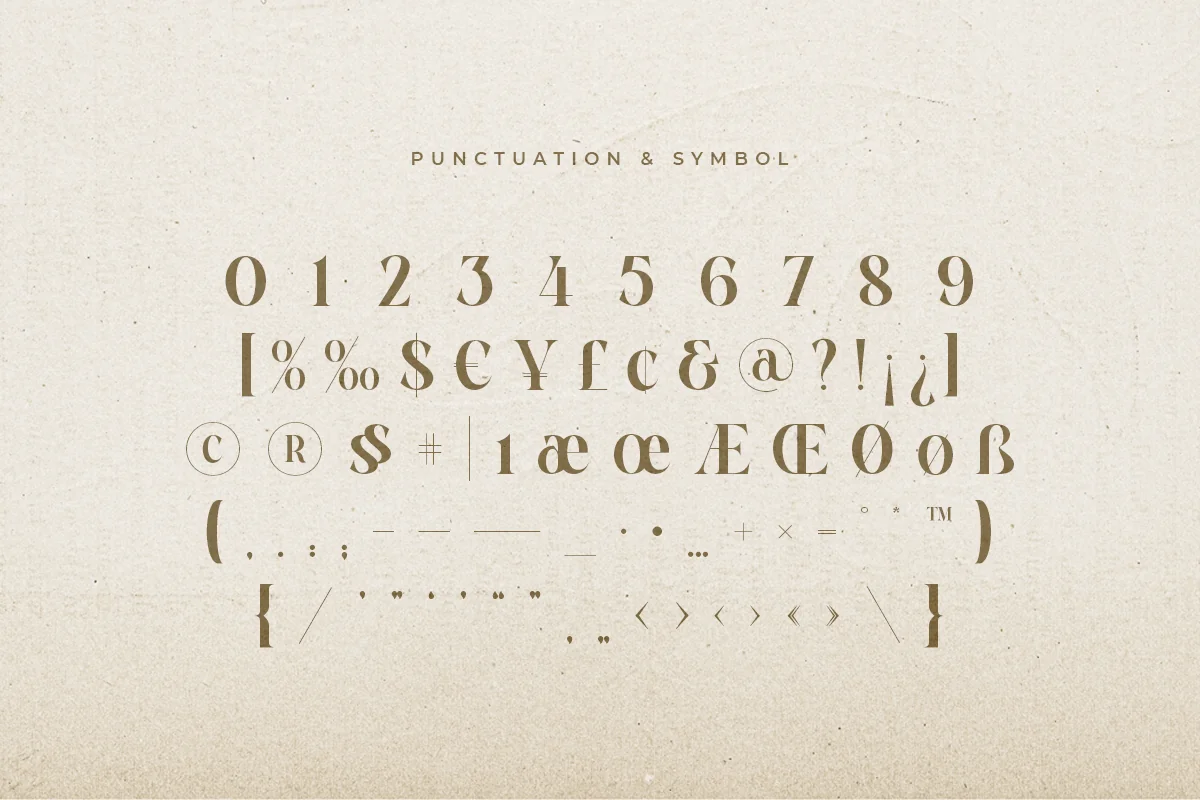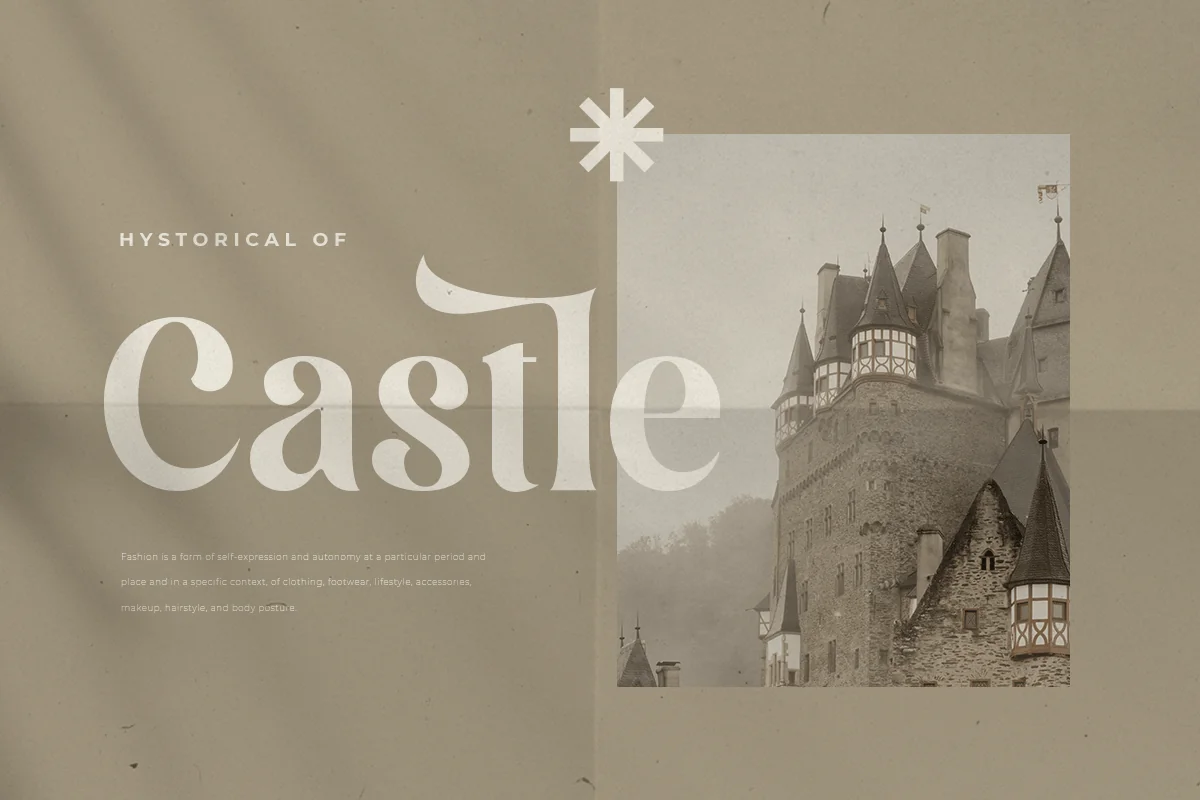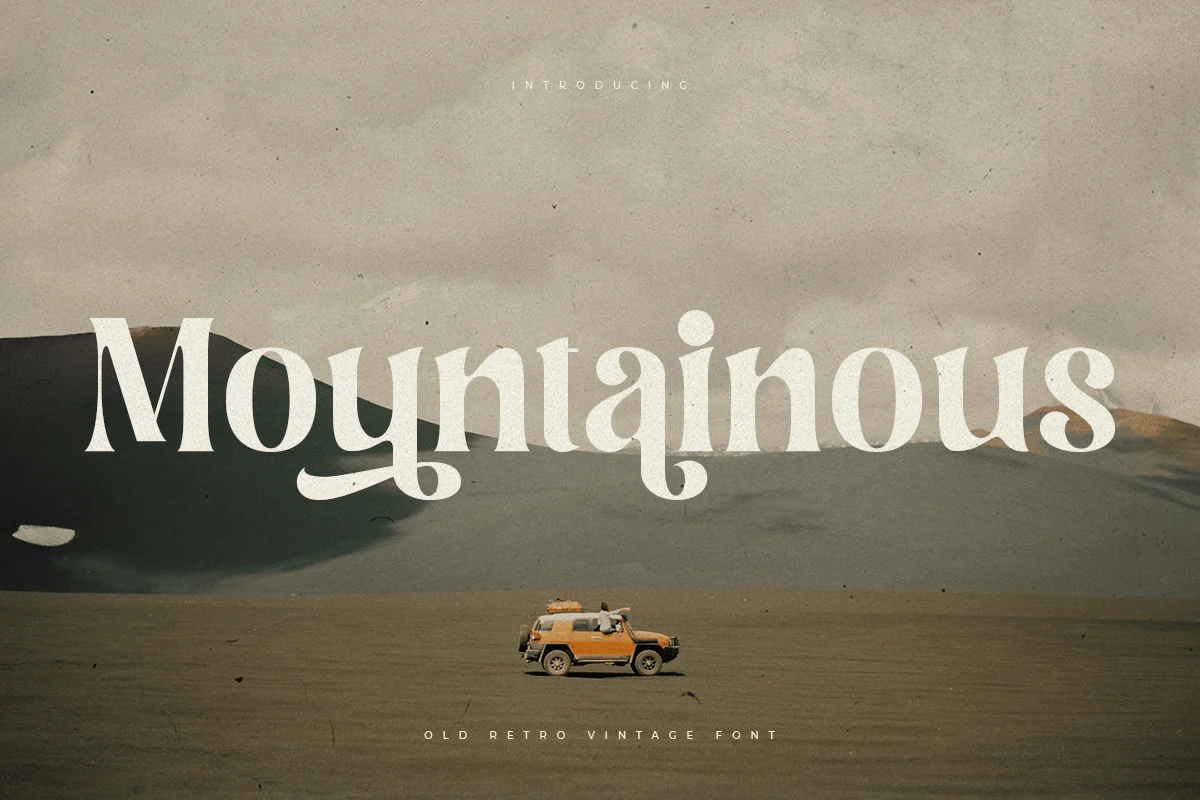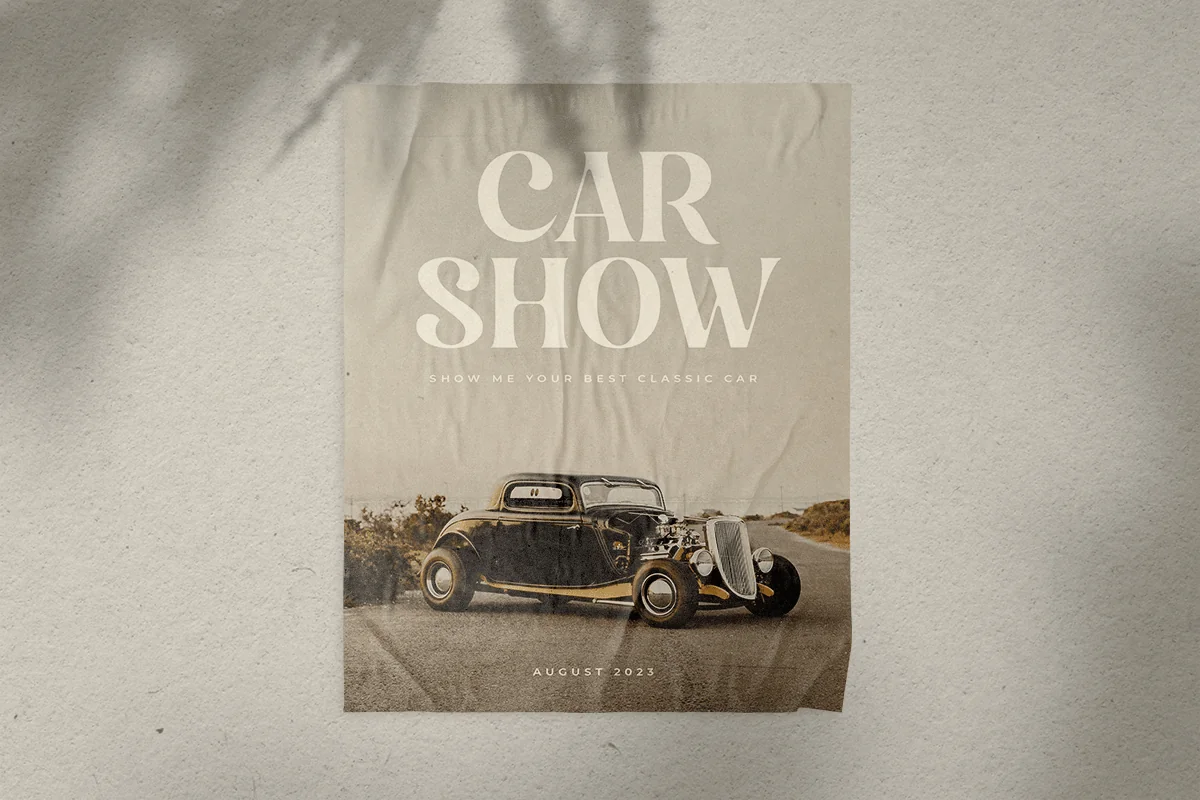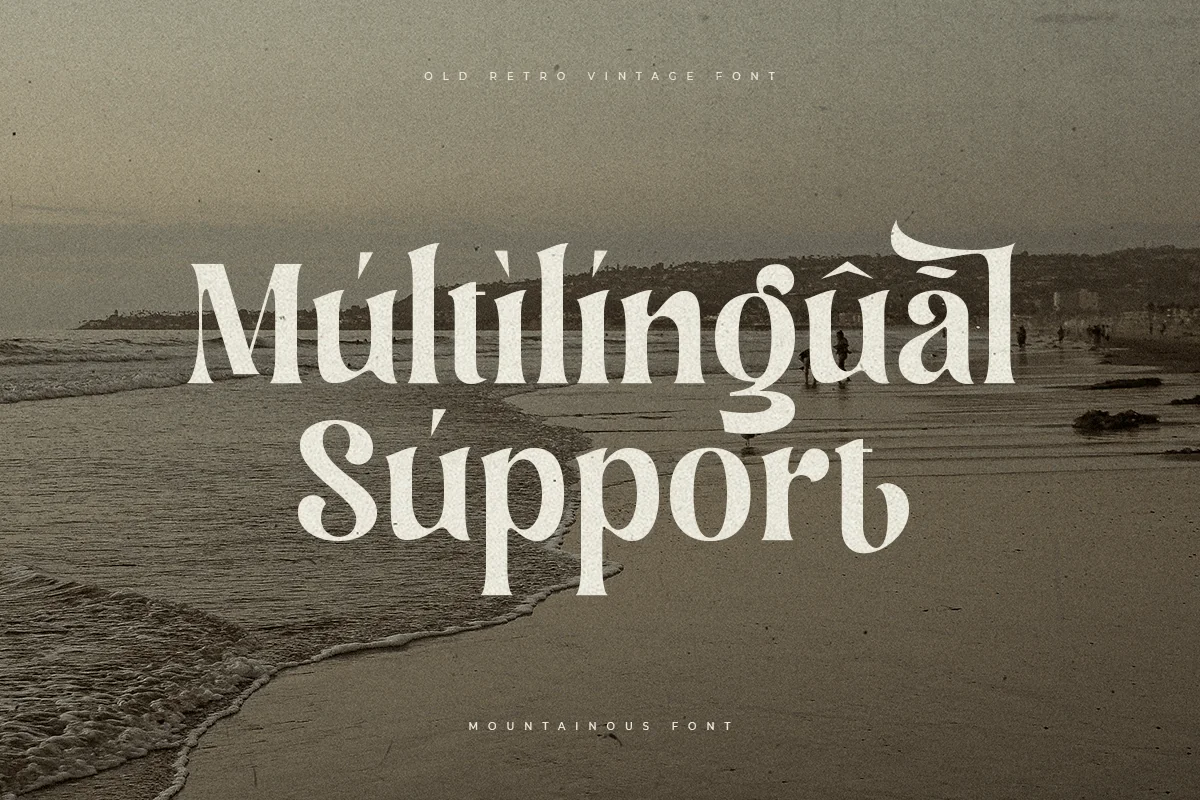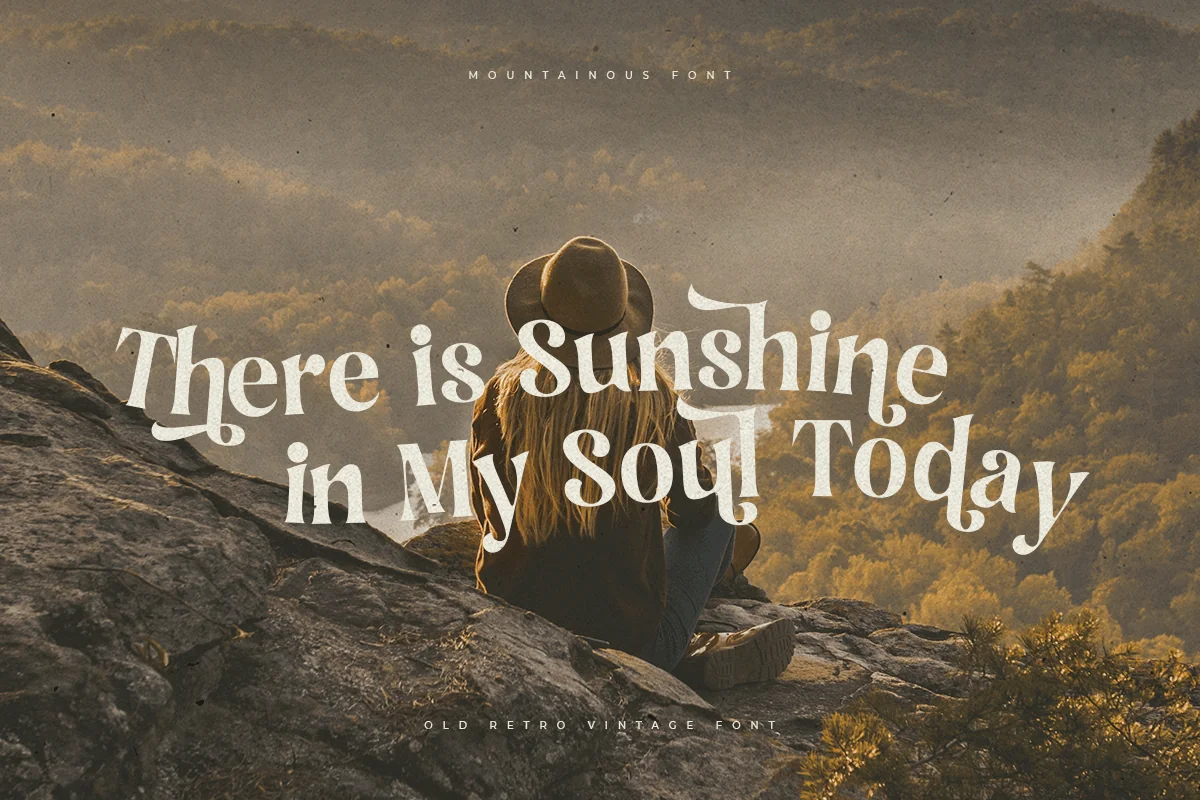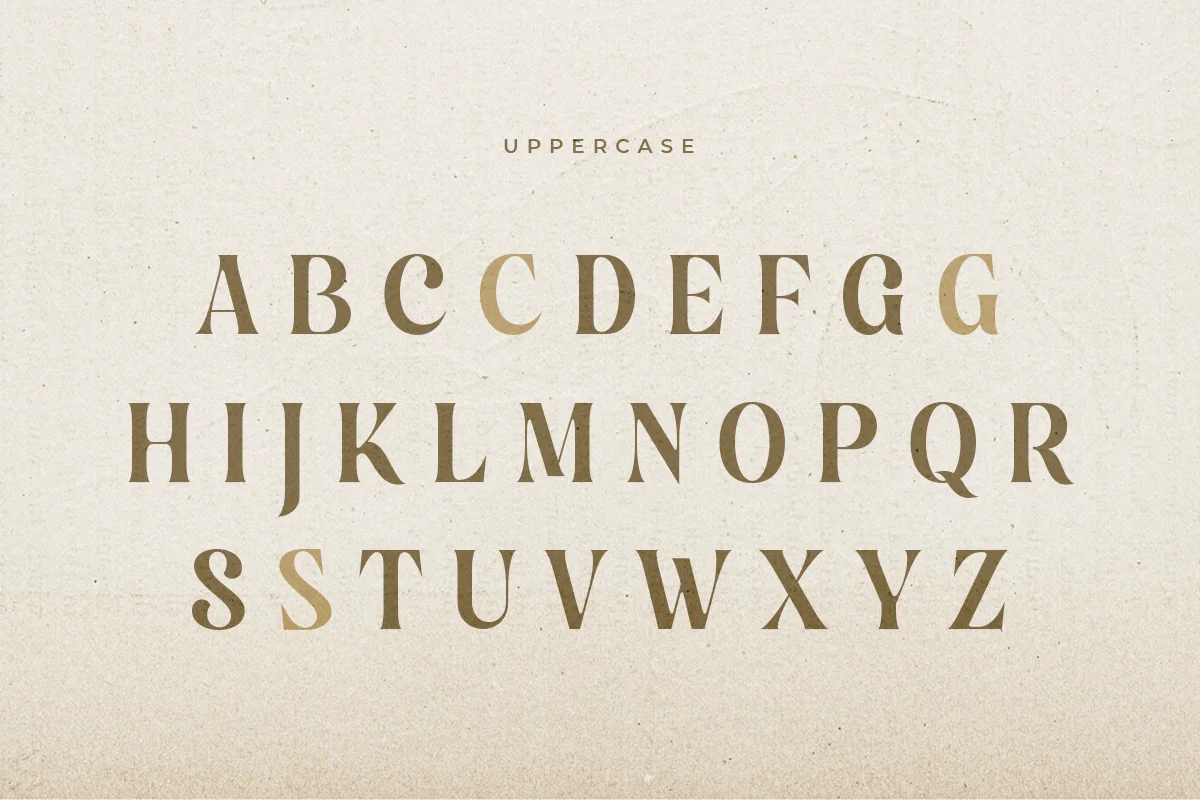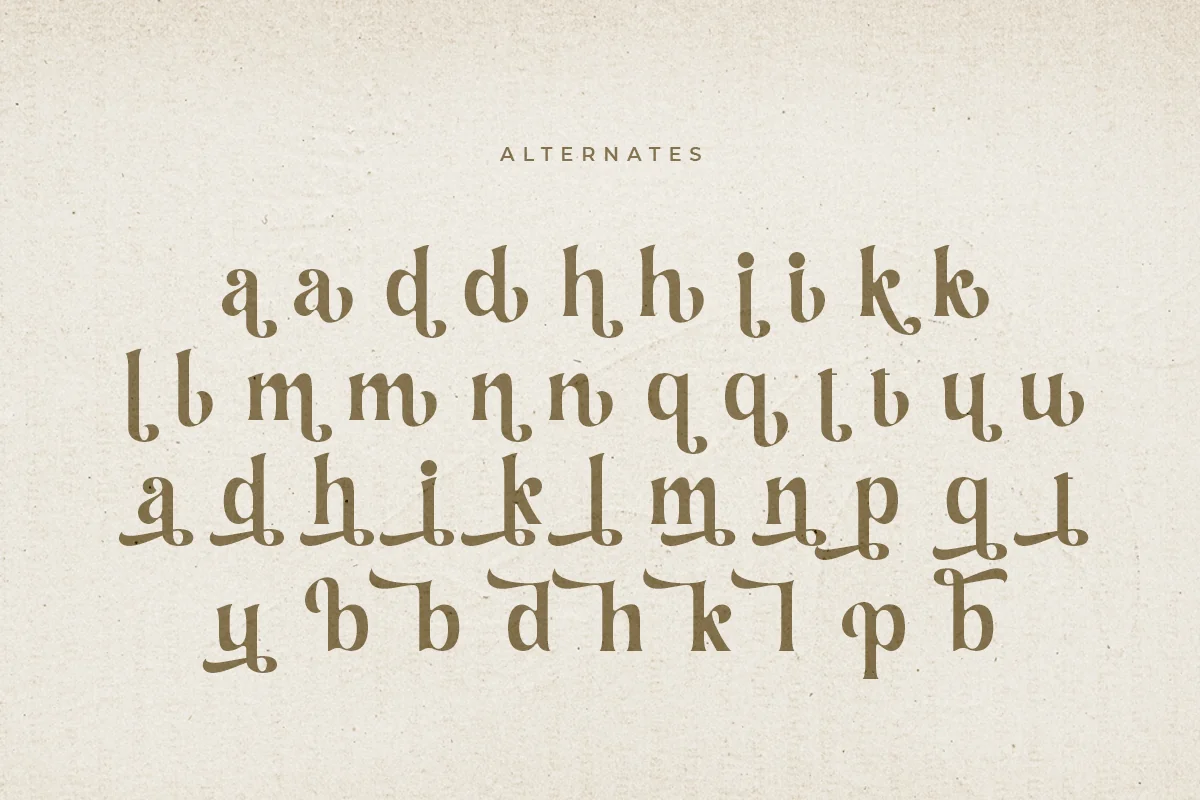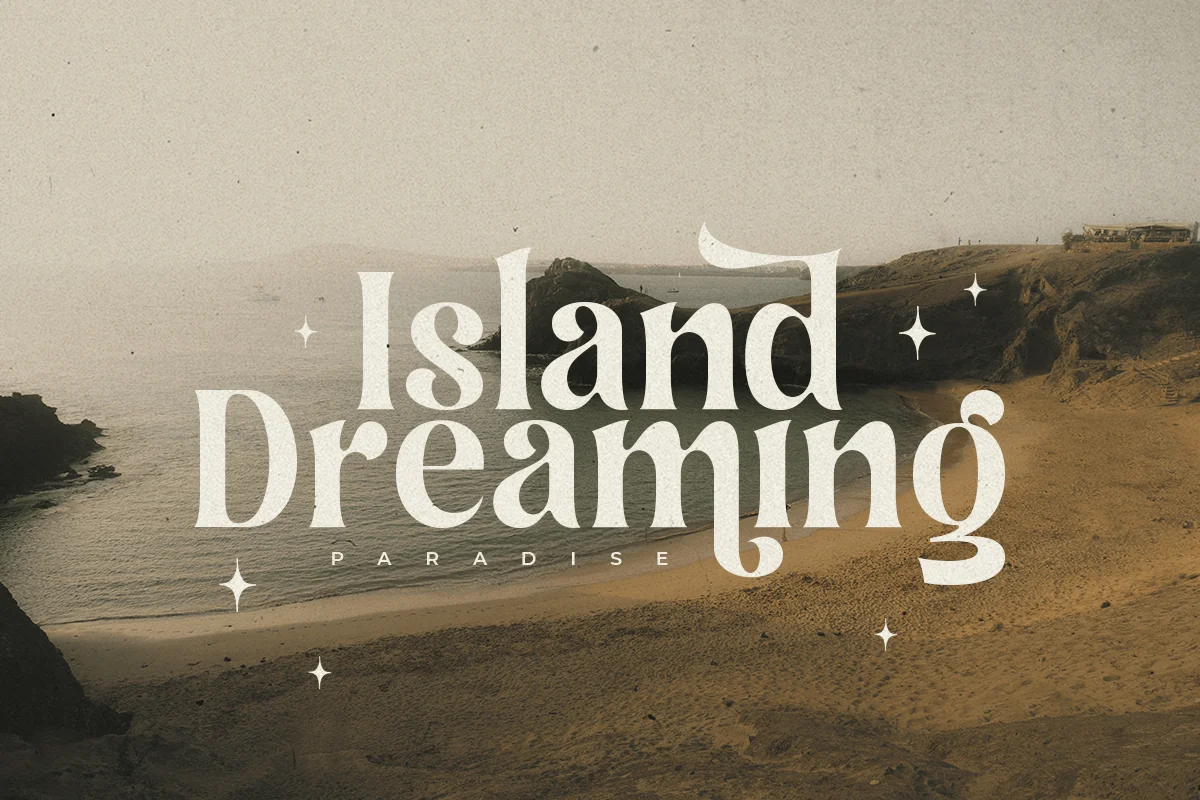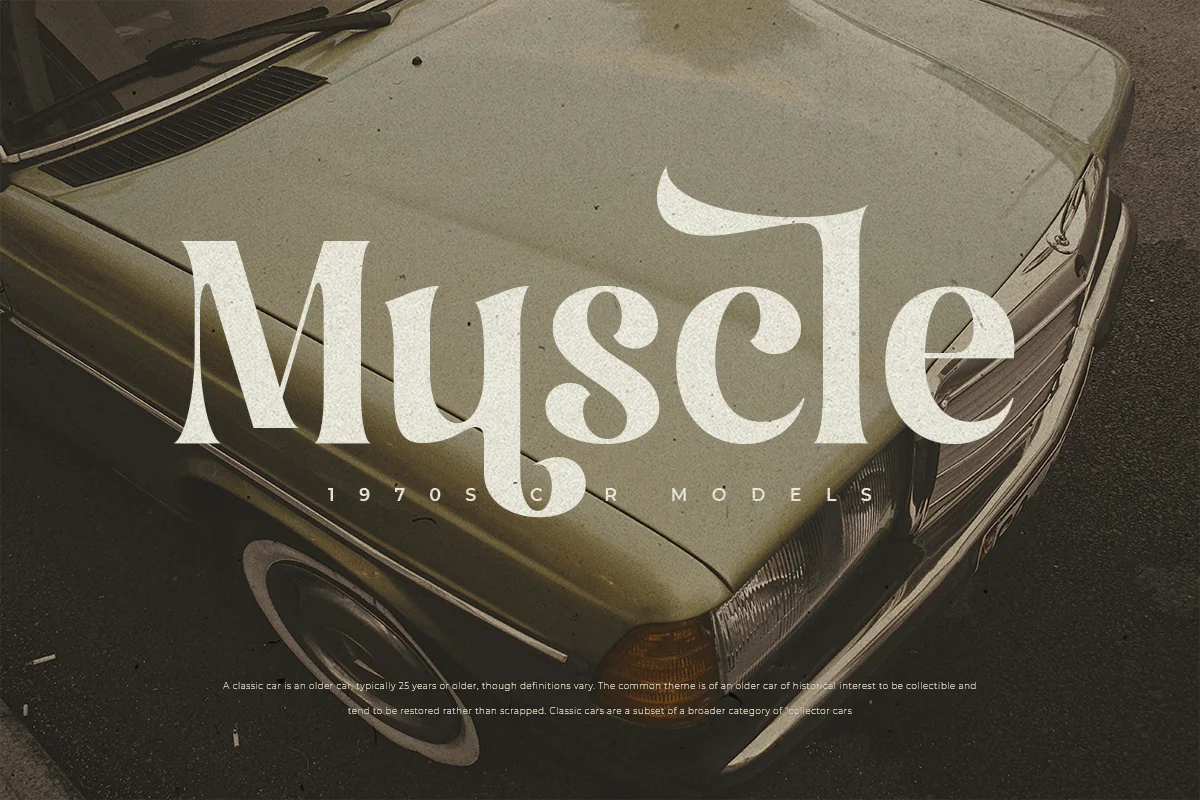
Montainous – Old Retro Vintage Font
Montainous is an Old Retro Vintage Font
An Old Retro Vintage font that special created with Display style for Headline Vintage Retro Project, Unique branding needs, with extra alternates in unique style that ready to add value of your brand. It’s so nice to leverage designer or product owner that need solutions to make their design look more unique and vintage.